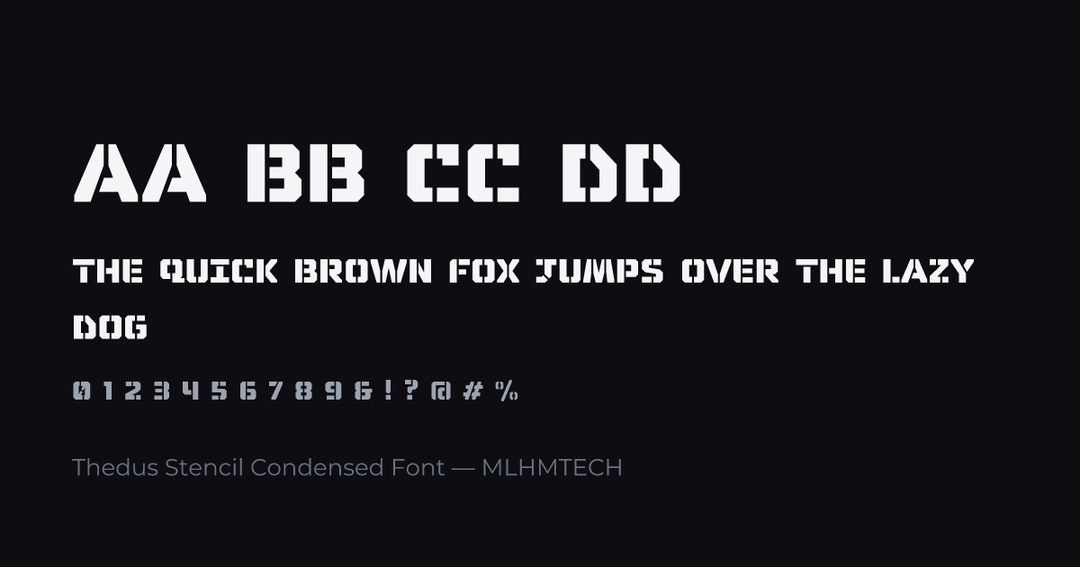
Thedus Stencil Condensed Font
Thedus Stencil Condensed is a bold, industrial display font with a stencil style. Ideal for posters, logos, and urban-inspired designs.
Thedus Stencil Condensed is a high-impact display font that combines the ruggedness of stencil lettering with a condensed, space-saving structure. Its sharp edges and sturdy forms evoke industrial and military aesthetics, making it perfect for headlines, posters, packaging, and branding projects that demand attention.
Whether you're designing a movie poster, a streetwear logo, or a gritty editorial layout, Thedus Stencil Condensed will deliver a commanding presence. Its condensed nature allows for tight spacing, making it ideal for limited-space designs like labels and badges.